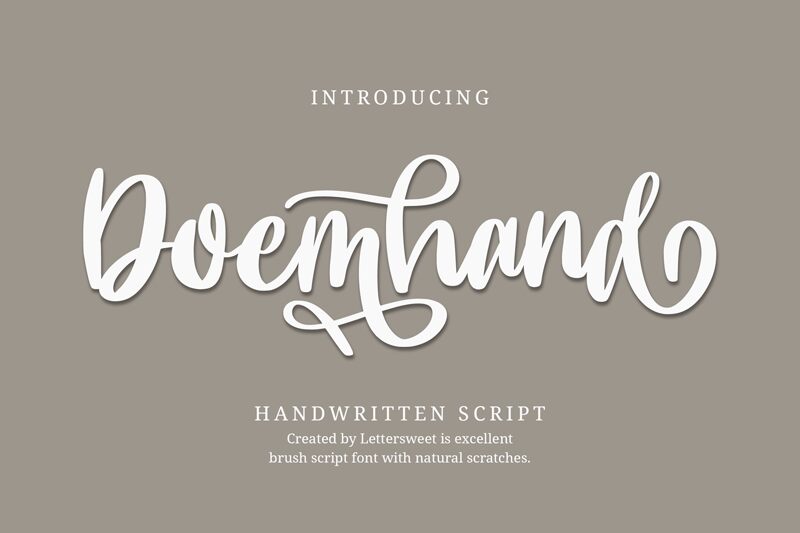
Doemhand-Regular
Doemhand emerges as a striking creation from the imaginative minds at Lettersweet Studio, boasting a bold brush style that exudes artistic flair and dynamism. This font's brushed strokes offer a perfect blend of casual charm and emphatic expression, making it a versatile choice for various design endeavors. Its aesthetic appeal lies in the seamless marriage of handcrafted authenticity with impactful boldness, ensuring that any text stands out with an approachable yet assertive presence.
The Doemhand font is particularly suited to projects requiring a touch of personalized sophistication – from branding materials and advertising to social media graphics and editorial designs. Its robust weight ensures excellent readability, while its stylistic brush nuances inject life into every word. Whether you're crafting compelling headlines or looking for a font to accentuate key points in creative compositions, Doemhand offers both the visual impact and the stylistic versatility needed to elevate your work above the ordinary.